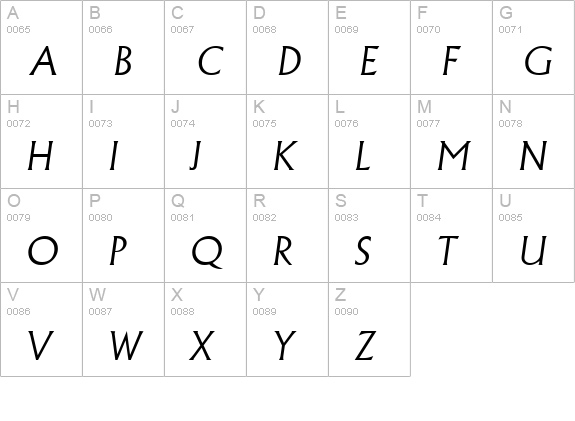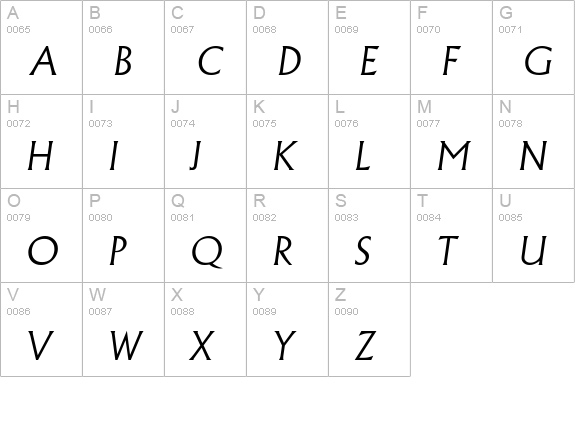
AdelonSerial-Light-Italic is a refined, elegant, italic variant in the AdelonSerial typeface family \xE2\x80\x94 well suited to elegant body text, refined sub-headings, and luxury branding.
AdelonSerial-Light-Italic is a gracefully designed font that exudes elegance and sophistication. Its delicate and slanted form gives a sense of refinement and modernity, making it a perfect choice for projects that require a touch of sophistication and style. The light weight of this font adds a subtle touch of femininity and grace, making it ideal for use in branding, invitations, and editorial design. What makes AdelonSerial-Light-Italic even more appealing is that it is available for free download at FontsMarket.com. This means you can enhance your projects with this beautiful font without any cost, making it a fantastic option for both personal and commercial use. Don't miss out on the opportunity to elevate your designs with AdelonSerial-Light-Italic - download it today and add a touch of elegance to your creations!